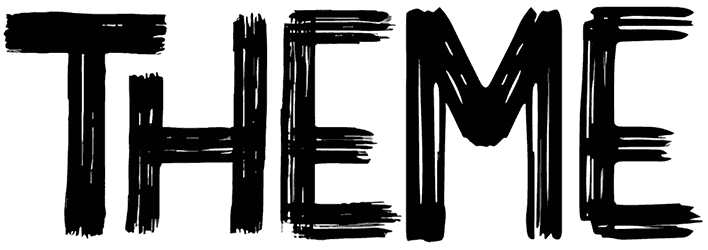
Here we come again to have the honor of introducing a wonderful brush font such as Theme to you. This all-caps masterpiece comes with scratched characters, thus it carries a vibe of freshness, personalization, or eerie. Due to its unique style, it would look insanely perfect on your flyers, branding, billboards, or product packaging.